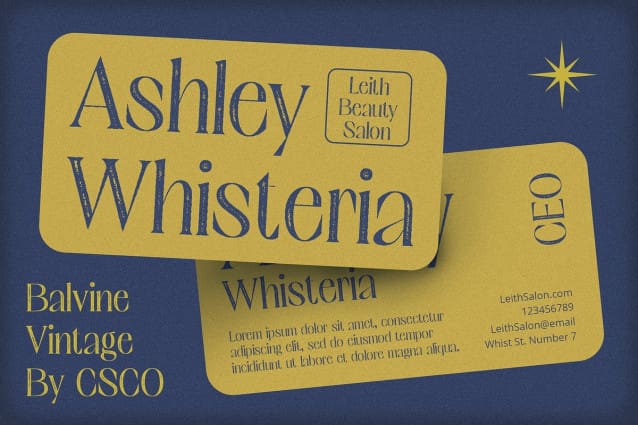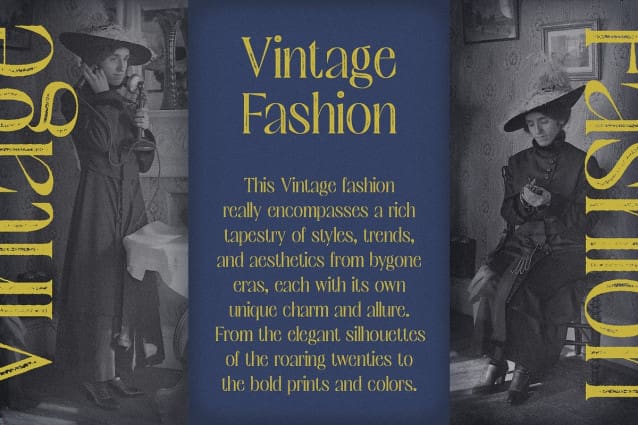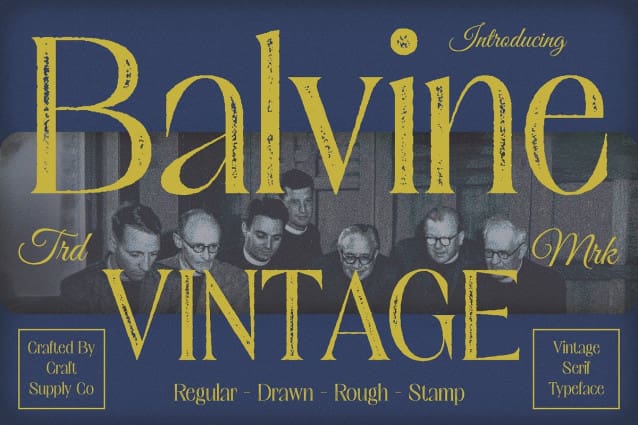
Balvine Vintage Font
Balvine Vintage Font: Embracing High-Contrast Elegance. High-Contrast Serif Design Balvine Vintage boasts a high-contrast serif design that exudes elegance and sophistication. Its bold strokes and delicate serifs create a captivating visual impact.
Stamp Effect Enhanced with a stamp effect, the font carries a vintage vibe that adds character and nostalgia to any project. Each letter appears as if it were imprinted, evoking a sense of authenticity.
Perfect for Display With its high-contrast serif design and vintage stamp effect, This font is ideal for display purposes. It commands attention and lends a touch of retro charm to headlines, titles, and logos.
Versatile Application Despite its vintage appeal, This font is versatile in its application. From branding and packaging to signage and editorial design, it infuses projects with timeless elegance and visual interest.
Timeless Elegance with Vintage Charm This font combines high-contrast elegance with vintage charm, making it a perfect choice for designers seeking to infuse their projects with sophistication and nostalgia. Whether used for display or subtle accents, Balvine Vintage delivers impactful results with its distinctive design.